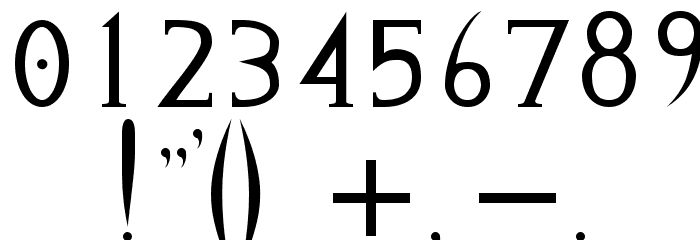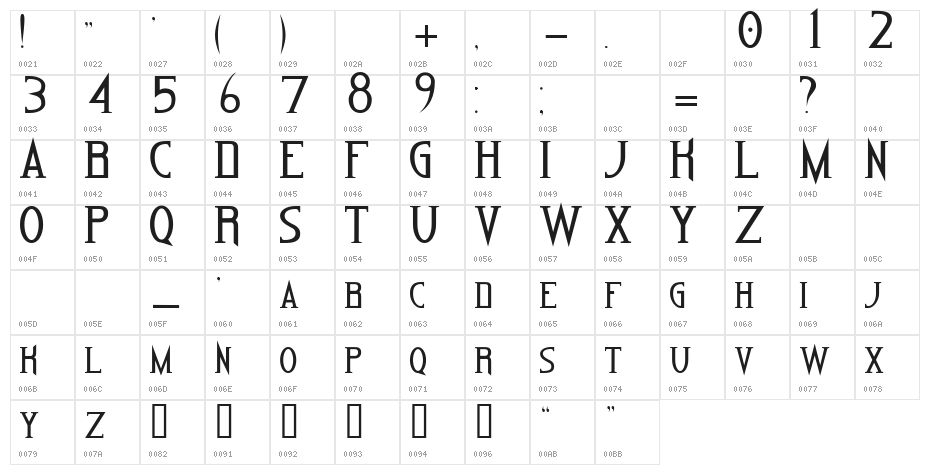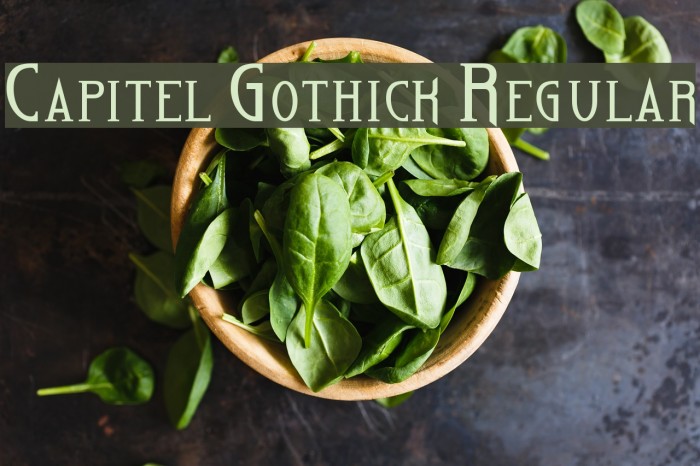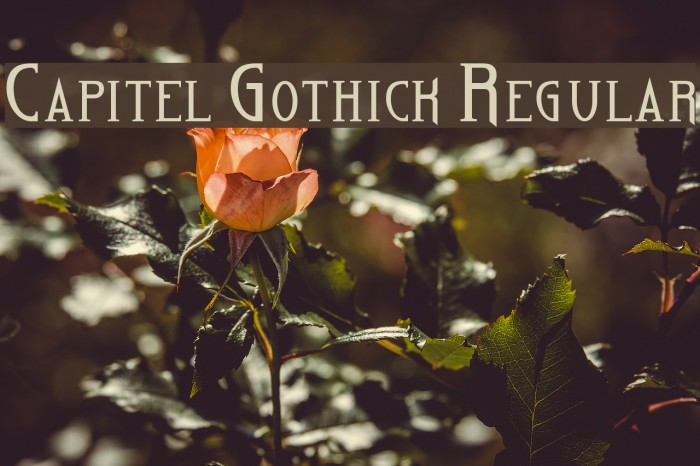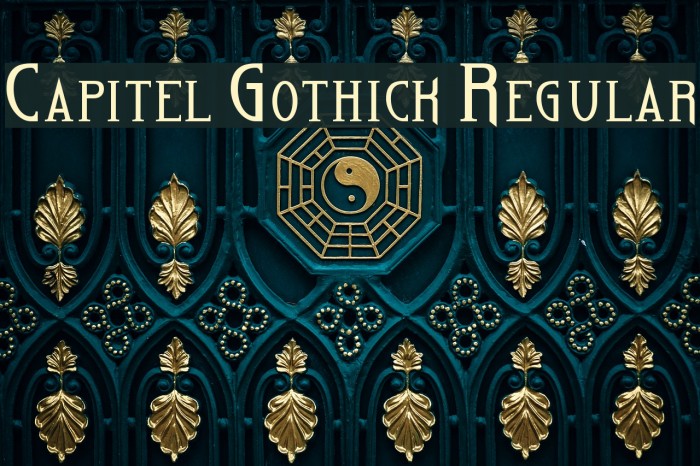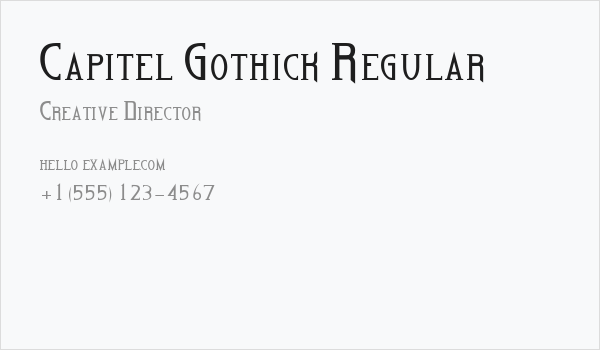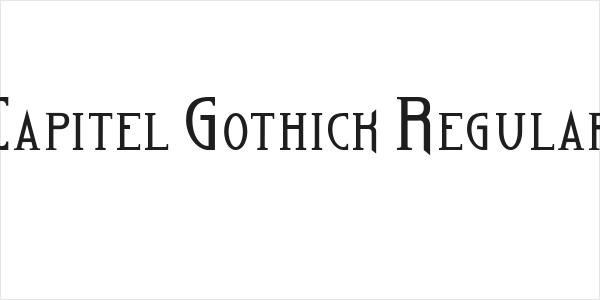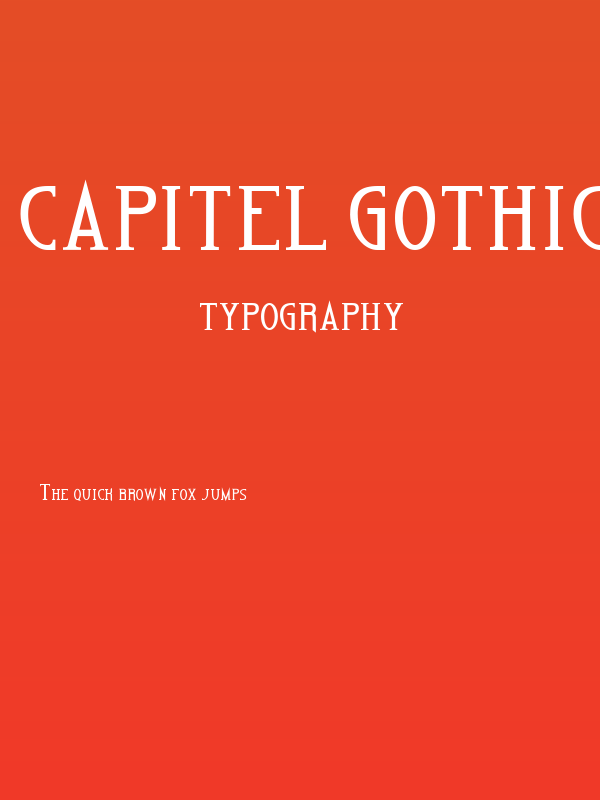
Capitel Gothick Regular Font
Capitel Gothick Regular Description
This font features a distinctive, gothic-inspired design with sharp, angular serifs and a strong vertical emphasis. The uppercase letters are tall and narrow, giving a sense of elegance and authority. The lowercase letters maintain a consistent style, complementing the uppercase with their own unique flair. The numerals are clear and legible, with a slight decorative touch that aligns with the overall gothic theme. Special characters are crafted with precision, adding to the font's versatility. The design is both classic and modern, making it suitable for a variety of applications.
Overall StyleGothic, Classic
Use CaseHeadlines, Logos, Branding
Proposed ProjectsIdeal for branding, book covers, posters, and any project requiring a touch of elegance and authority.